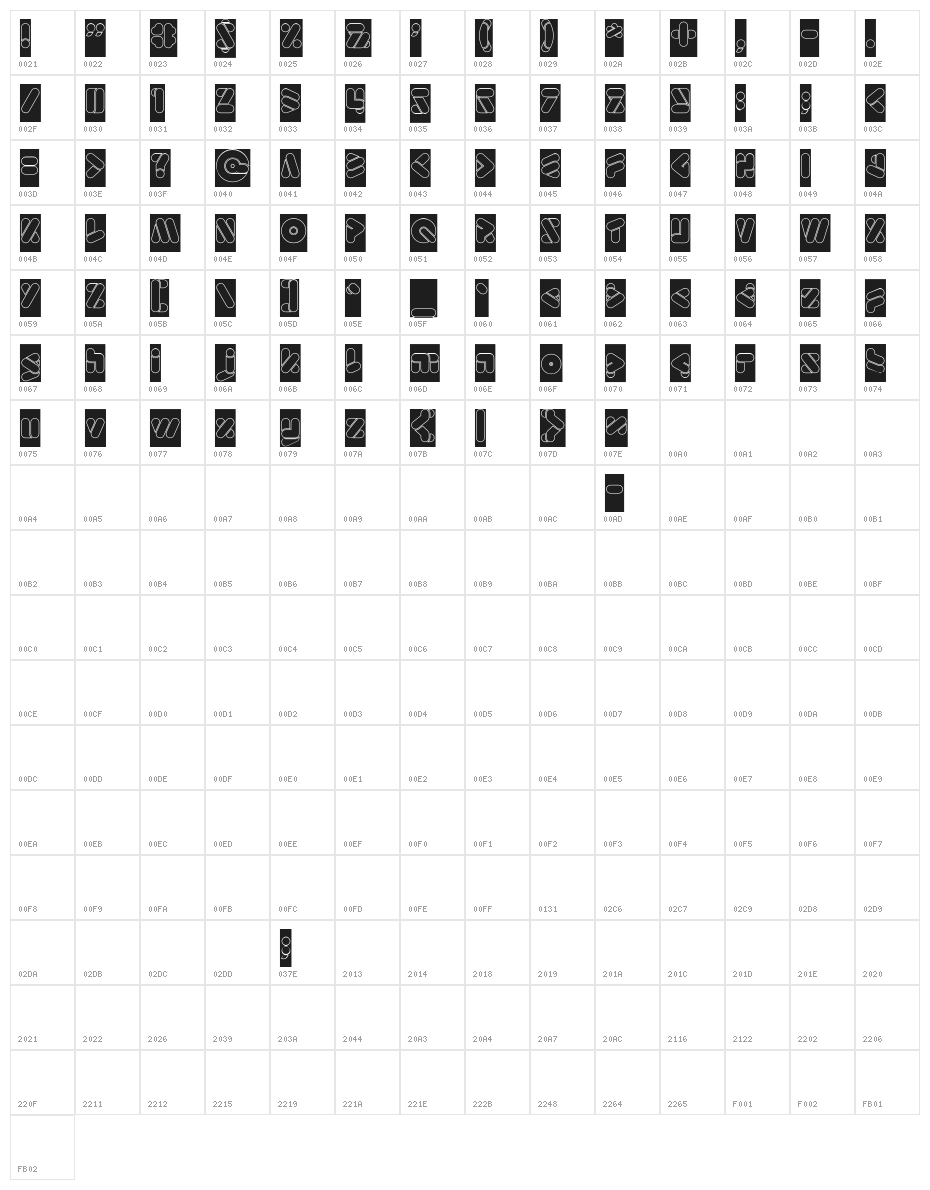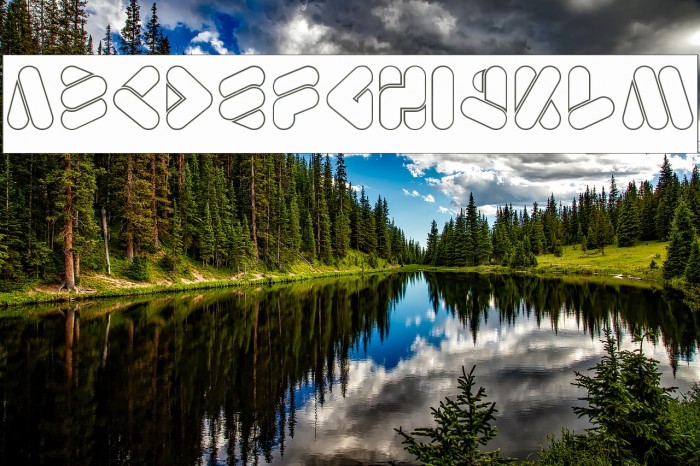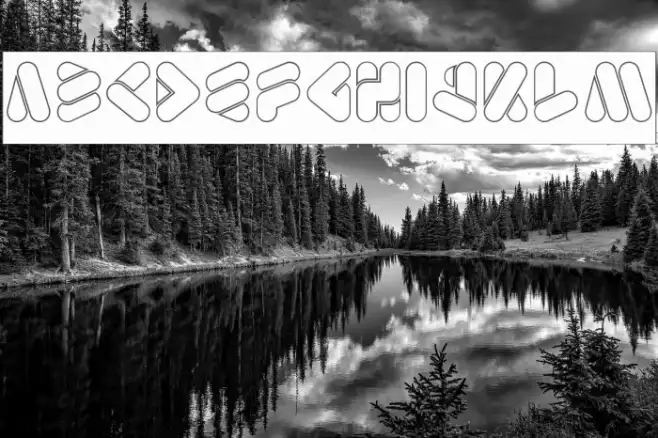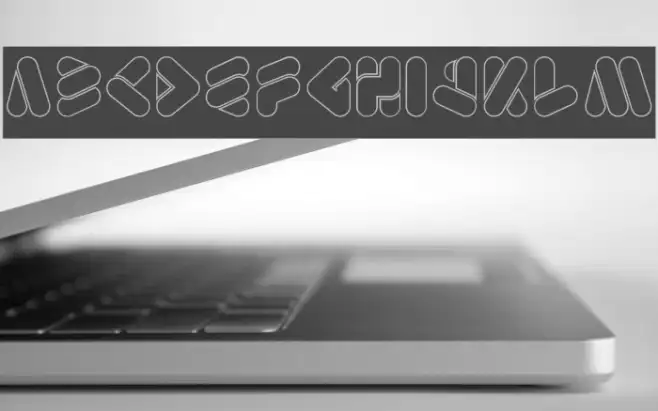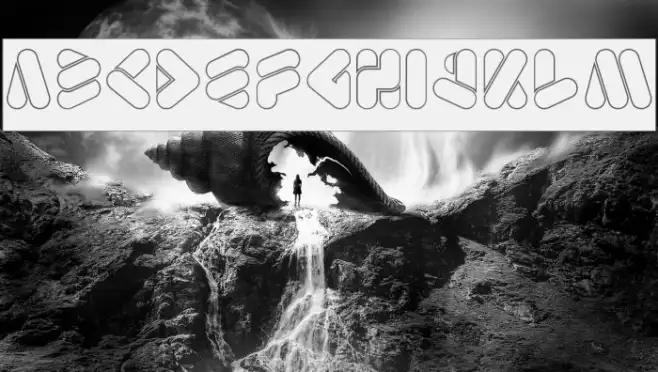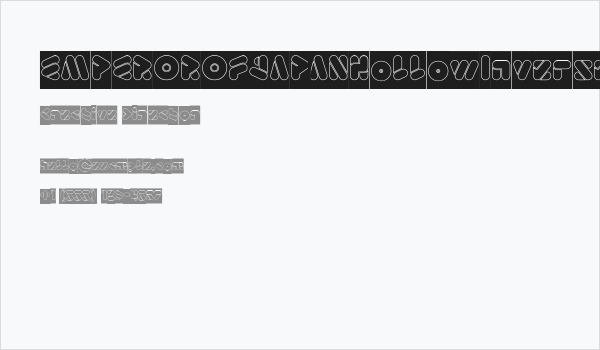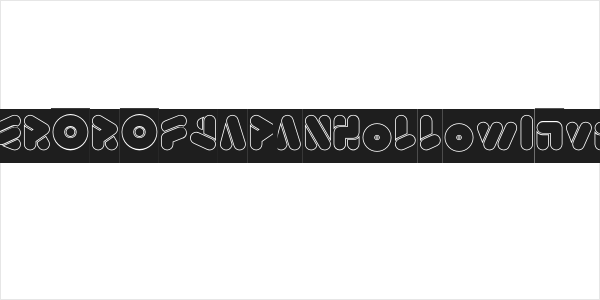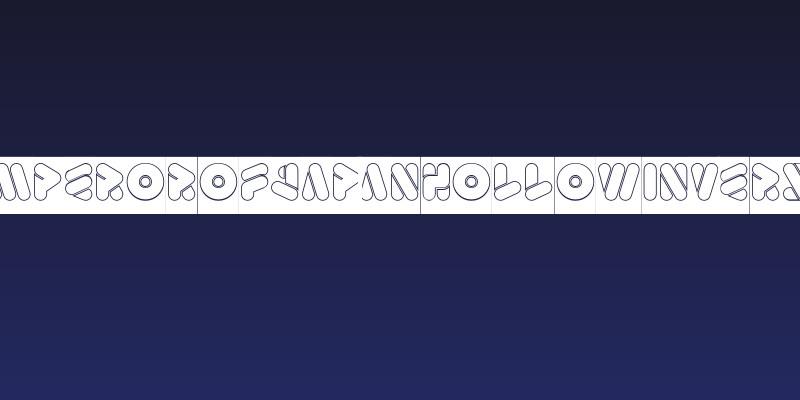
EMPEROROFJAPANHollowInverse Font
EMPEROROFJAPANHollowInverse Description
This font features a hollow, inverse design with a futuristic and geometric style. Each character is crafted with a continuous line that forms the shape of the letter, creating a unique, open appearance. The uppercase and lowercase letters maintain a consistent design, with rounded edges and a smooth flow. The numbers and special characters follow the same aesthetic, ensuring uniformity across all glyphs. This font's distinct look is both modern and playful, making it suitable for creative and eye-catching designs.